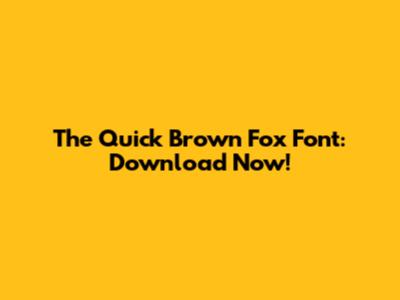
Hey guys! Ever heard of the phrase "The quick brown fox jumps over the lazy dog"? It's a classic pangram, meaning it uses every letter of the alphabet. And guess what? There's a font inspired by this very phrase, and it's called The Quick Brown Fox Font. If you're looking to download this awesome typeface, you've come to the right place! In this article, we're going to dive deep into why this font is so cool, where you can grab it, and how you can use it to make your projects pop. So, buckle up, and let's get this font party started!
Why The Quick Brown Fox Font is a Must-Have
So, why all the fuss about The Quick Brown Fox Font download? Well, besides its catchy name, this font is incredibly versatile. It's designed to be highly readable, making it perfect for everything from website copy to printed materials. The characters are clean, crisp, and have a friendly vibe that can make even the most serious document feel a bit more approachable. Imagine using it for a blog post header, a catchy social media graphic, or even for the body text of an ebook. It just works. Many designers love it because it strikes a great balance between being modern and classic. It’s not too stuffy, and it’s not too trendy that it will be out of style next week. The unique character shapes ensure that your text stands out, but not in an overly distracting way. It's subtle but effective.
Another reason this font is a hit is its character set. Often, free fonts can be a bit limited, but The Quick Brown Fox Font usually comes with a comprehensive set of glyphs, including uppercase and lowercase letters, numbers, punctuation, and often, a range of special characters and ligatures. This means you can express yourself fully without worrying about missing symbols. Whether you're crafting a multilingual website or just need to throw in a special symbol for a design, this font has got your back. Plus, its clean design makes it super easy to pair with other fonts. You can use it for your headlines and pair it with a more decorative font for subheadings, or vice versa. The possibilities are practically endless, guys!
The Aesthetics of The Quick Brown Fox Font
Let's talk aesthetics, shall we? The Quick Brown Fox Font boasts a clean, sans-serif design. This means it doesn't have the little decorative strokes (serifs) found at the ends of letters in fonts like Times New Roman. Sans-serif fonts are generally considered more modern and are super popular for digital interfaces and branding. The Quick Brown Fox font, however, manages to feel both contemporary and timeless. The letterforms are well-balanced, with generous spacing that enhances legibility. You'll notice a certain warmth to its design, which is often achieved through slightly rounded edges or a subtle variation in stroke thickness. This makes it feel welcoming and easy on the eyes, even for extended reading sessions. It’s the kind of font that doesn't shout for attention but rather draws you in with its understated elegance. Think of it as the comfy, stylish sweater of the font world – reliable, attractive, and always a good choice.
When you look closely at the individual characters, you can see the thoughtful design. The 'a' might have a single-story construction, the 'g' could be distinct, and the 't' and 'f' might have a slightly playful curve. These subtle details are what give the font its unique personality without compromising its readability. It's a font that can convey professionalism with a hint of personality, making it suitable for a wide range of applications. Whether you're designing a logo for a tech startup, a brochure for a local business, or even just a personal invitation, The Quick Brown Fox Font can adapt. It’s like a chameleon in the font kingdom, able to fit into various contexts and still maintain its charm. This adaptability is key for any designer or content creator looking for a reliable go-to font.
Pro-Tip: Always download fonts from reputable sources to avoid malware or viruses. Stick to well-known font websites to ensure you're getting a clean and legitimate file. Happy downloading!
How to Use The Quick Brown Fox Font Effectively
Now that you've got The Quick Brown Fox Font download sorted, let's talk about how to use it like a pro. Remember that versatility we talked about? Let's leverage that! For web design, this font is fantastic for headings and subheadings. Its clarity ensures that your key messages are easily digestible. For body text, it's also a solid choice, especially if you need to maintain readability on smaller screens. Just ensure you're using an appropriate font size and line spacing (leading) to maximize comfort for your readers. A good rule of thumb for web is to aim for at least 16px for body text, but this can vary depending on the font itself.
In print design, The Quick Brown Fox Font shines for brochures, flyers, posters, and even business cards. Its clean lines translate beautifully to print, giving your materials a professional and polished look. Consider using it for a slightly more formal invitation or a clean, modern resume. The key is to pair it wisely. For instance, if you use it for headlines, you might pair it with a more decorative script or a classic serif font for the body text to create contrast and visual interest. Conversely, if you're using it for the bulk of your text, a bold, attention-grabbing font for your headlines would work wonders. The goal is to create a visual hierarchy that guides the reader's eye through your content seamlessly.
Creative Applications for The Quick Brown Fox Font
Guys, the creative possibilities with The Quick Brown Fox Font are endless! Think outside the box! You can use it for crafting unique logos for your brand. Its clean and modern feel can give your brand an identity that is both professional and approachable. Imagine a logo where the "Q" or "F" has a unique flourish, or the "O"s are subtly different. You can also use it for designing engaging social media posts. Create eye-catching quote graphics, announcement banners, or even stylized captions. The readability ensures your message gets across loud and clear, even on busy feeds.